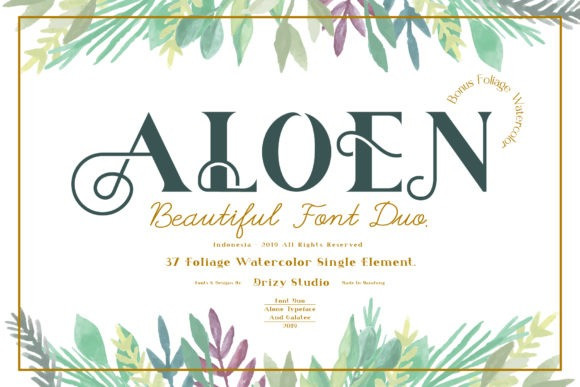
Aloen Font
Aloen Serif Font a truly iconic serif display font duo with a unique style. It combines two stunning fonts that will elevate any design idea!